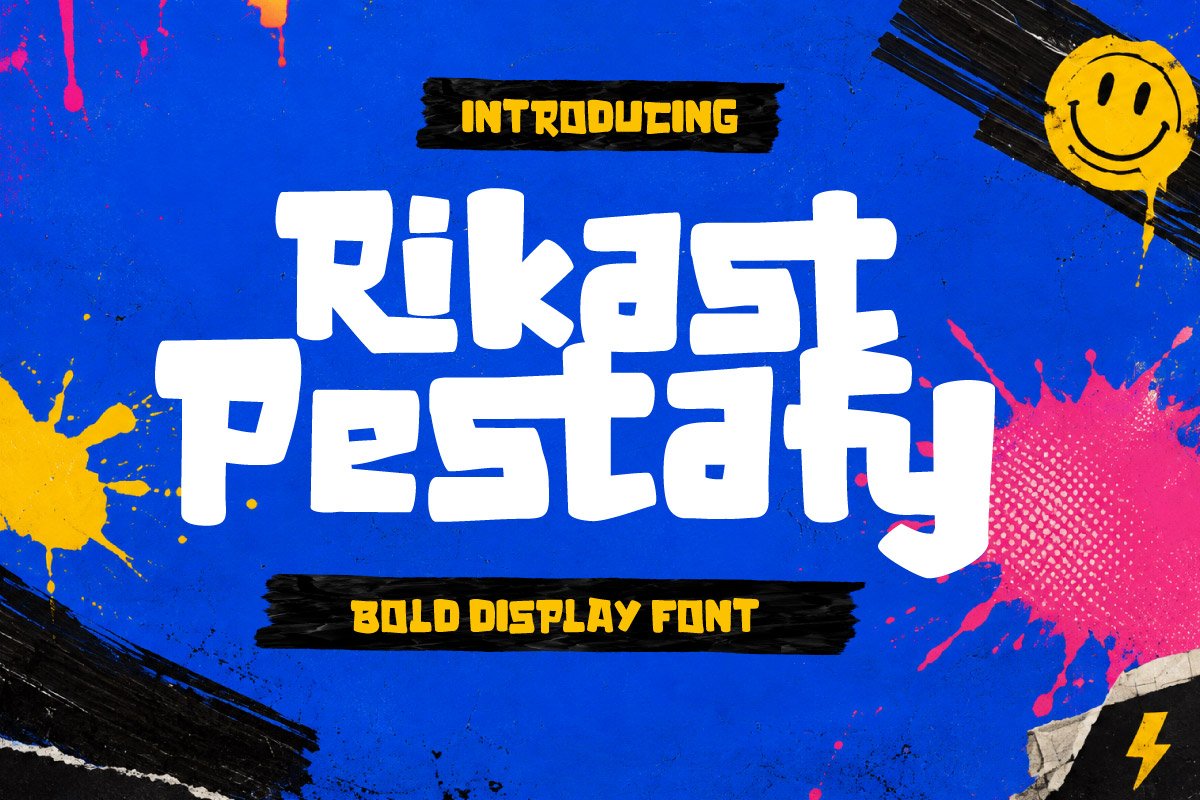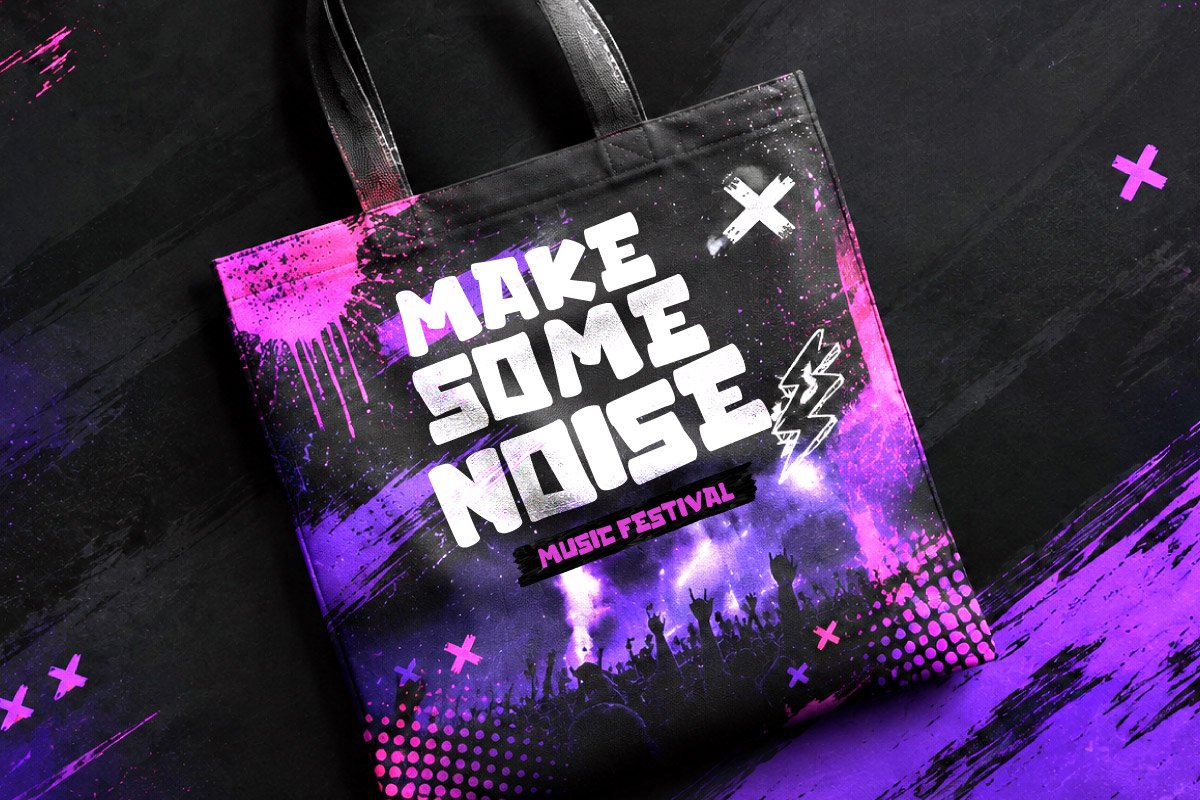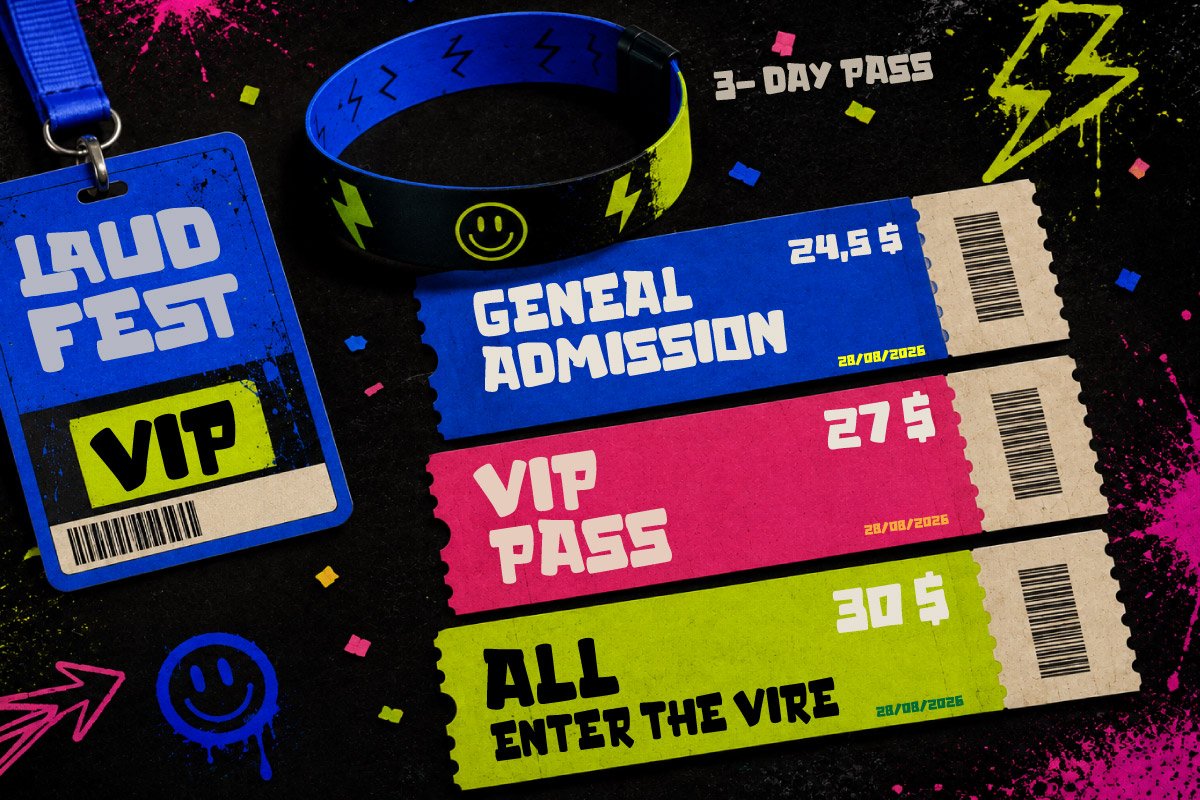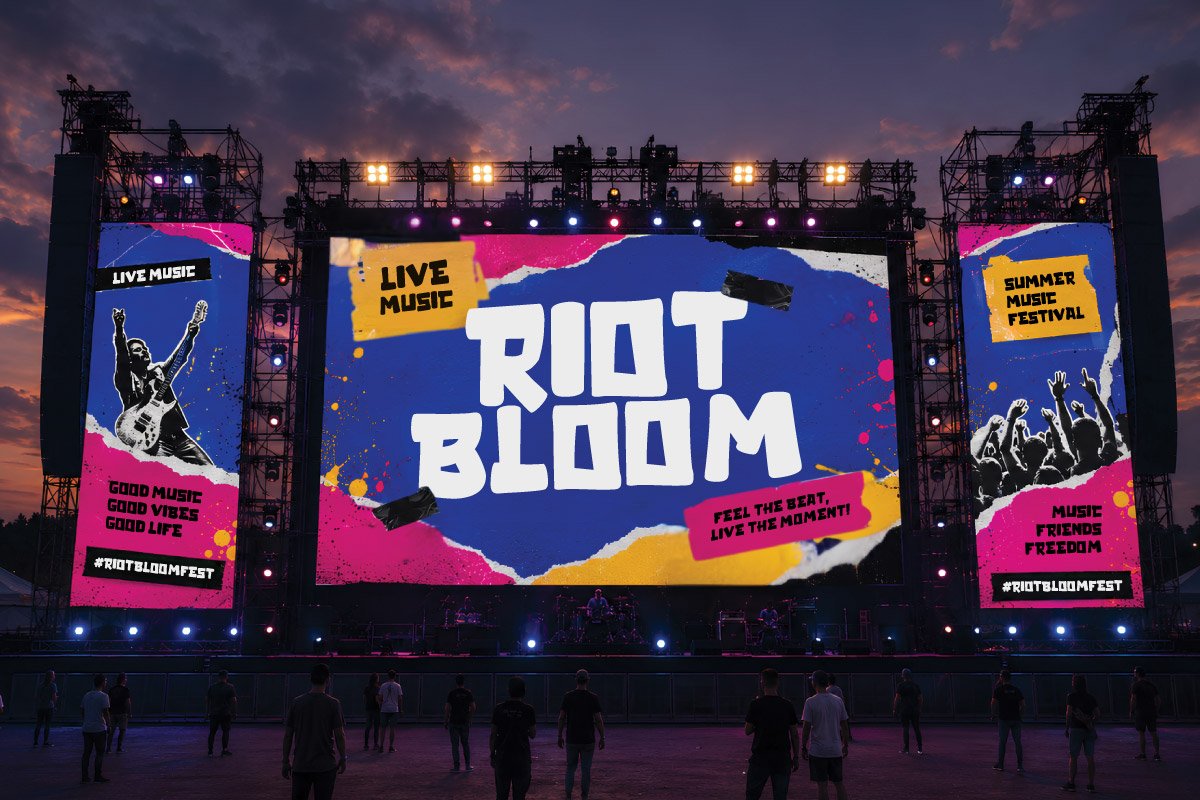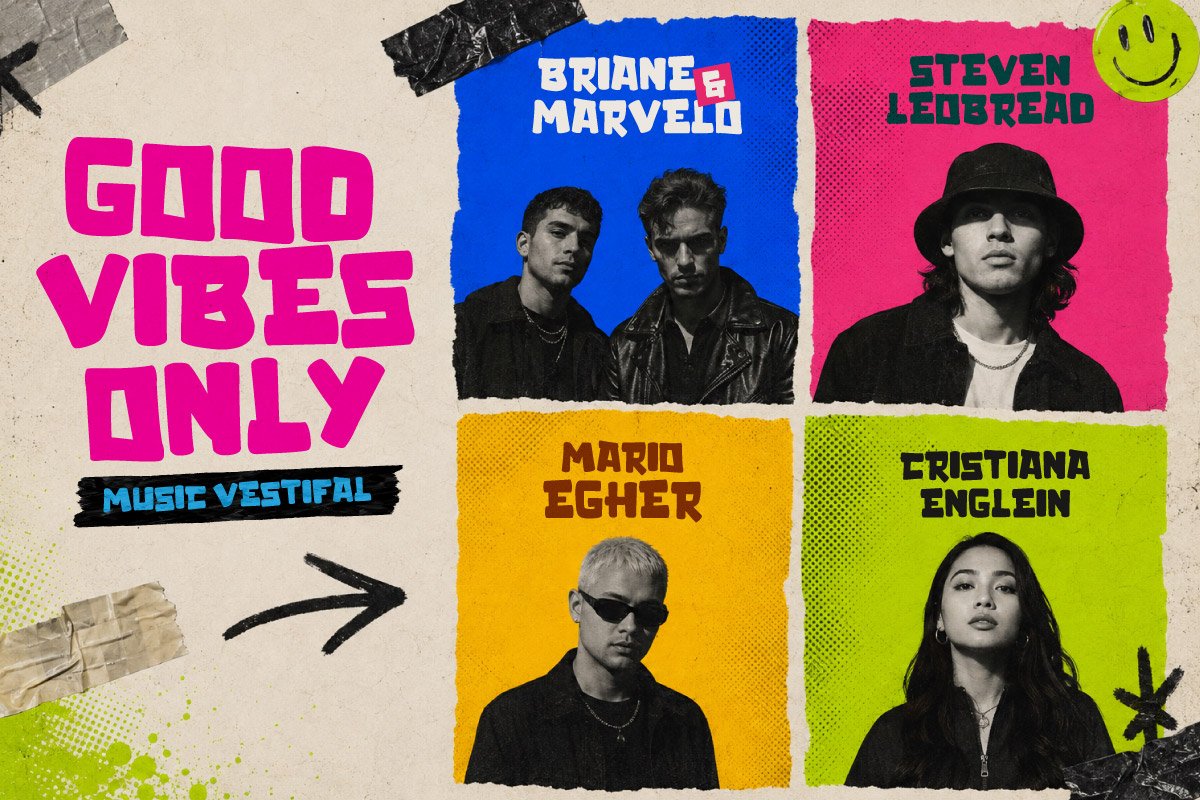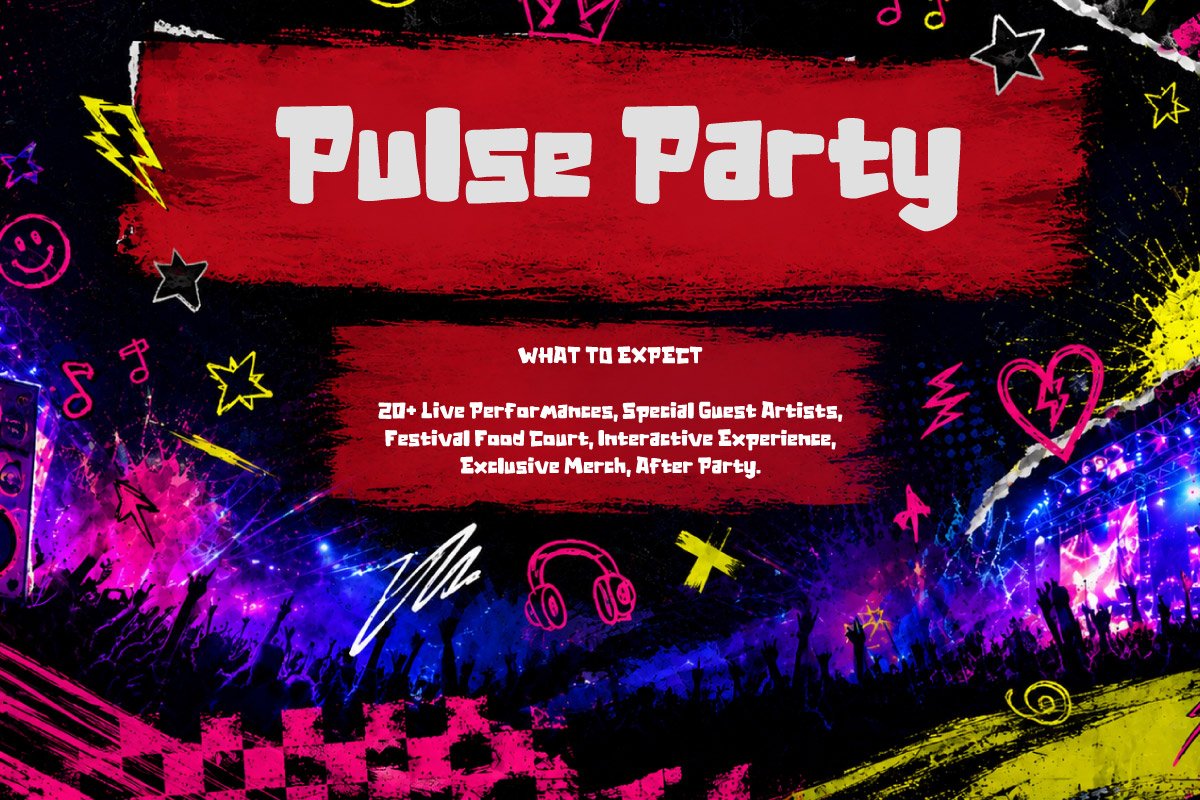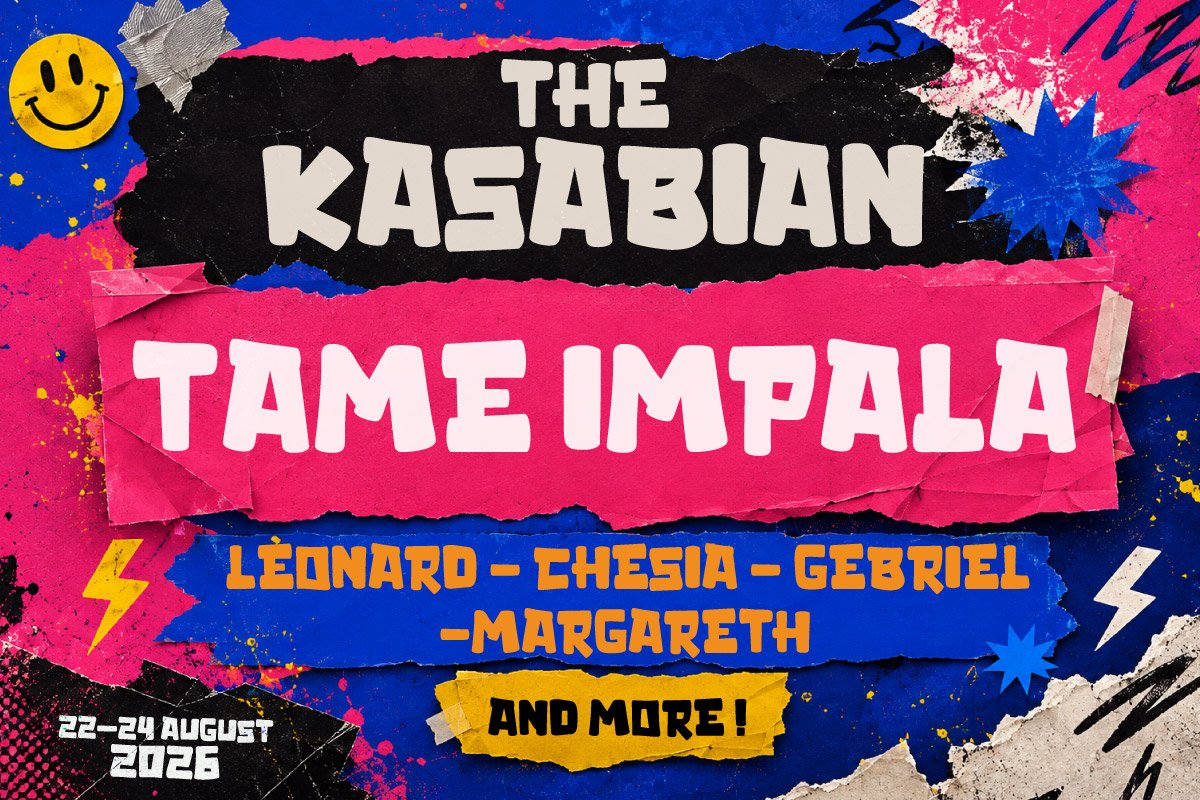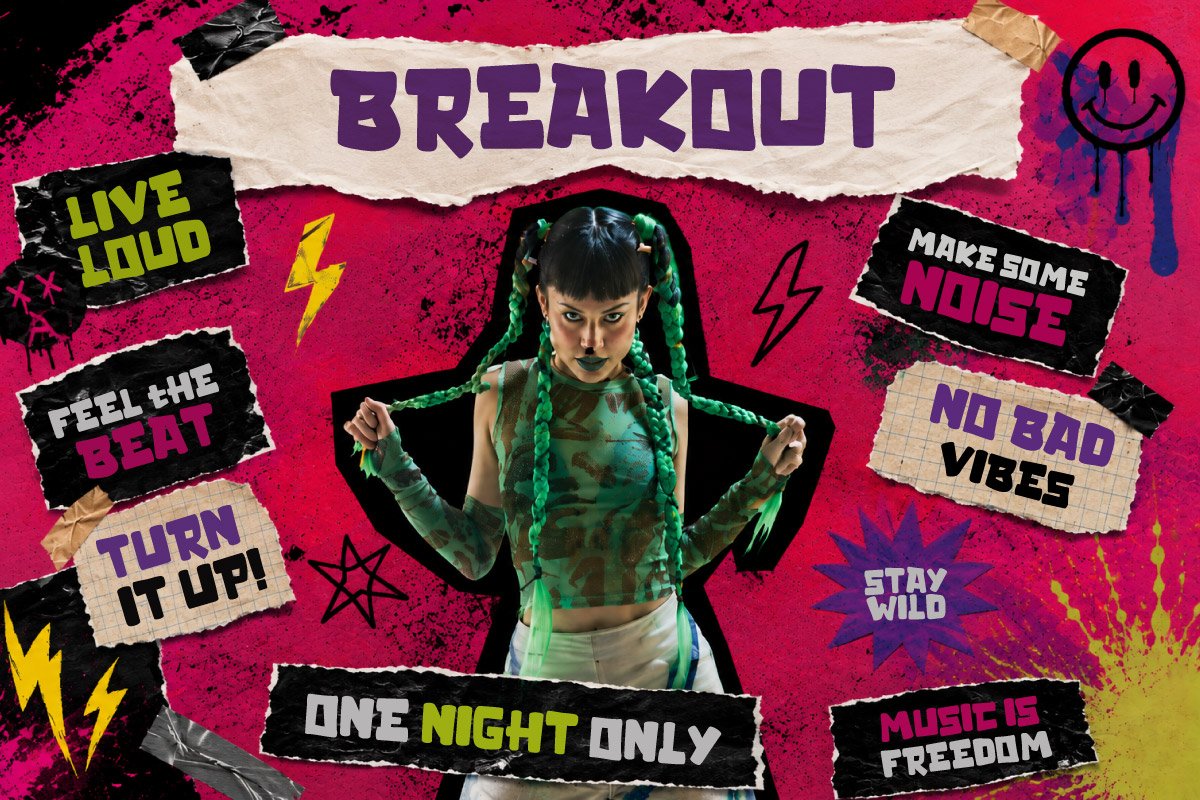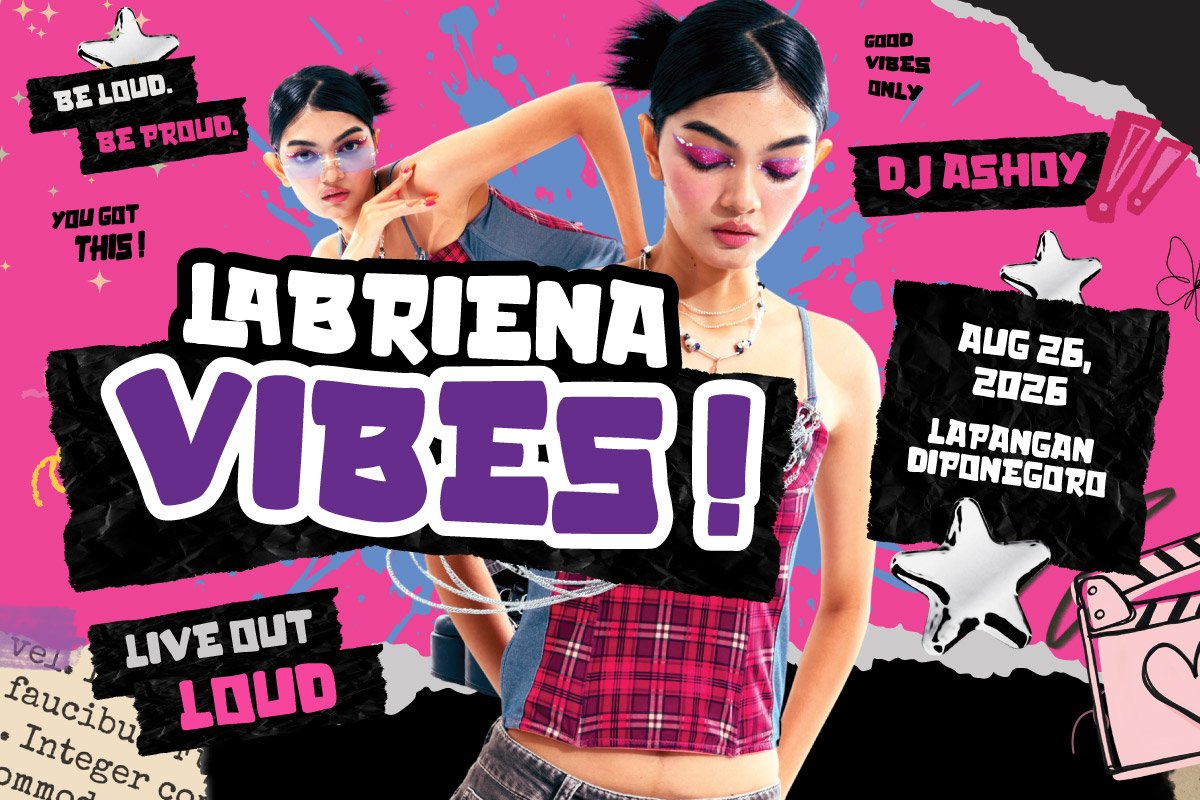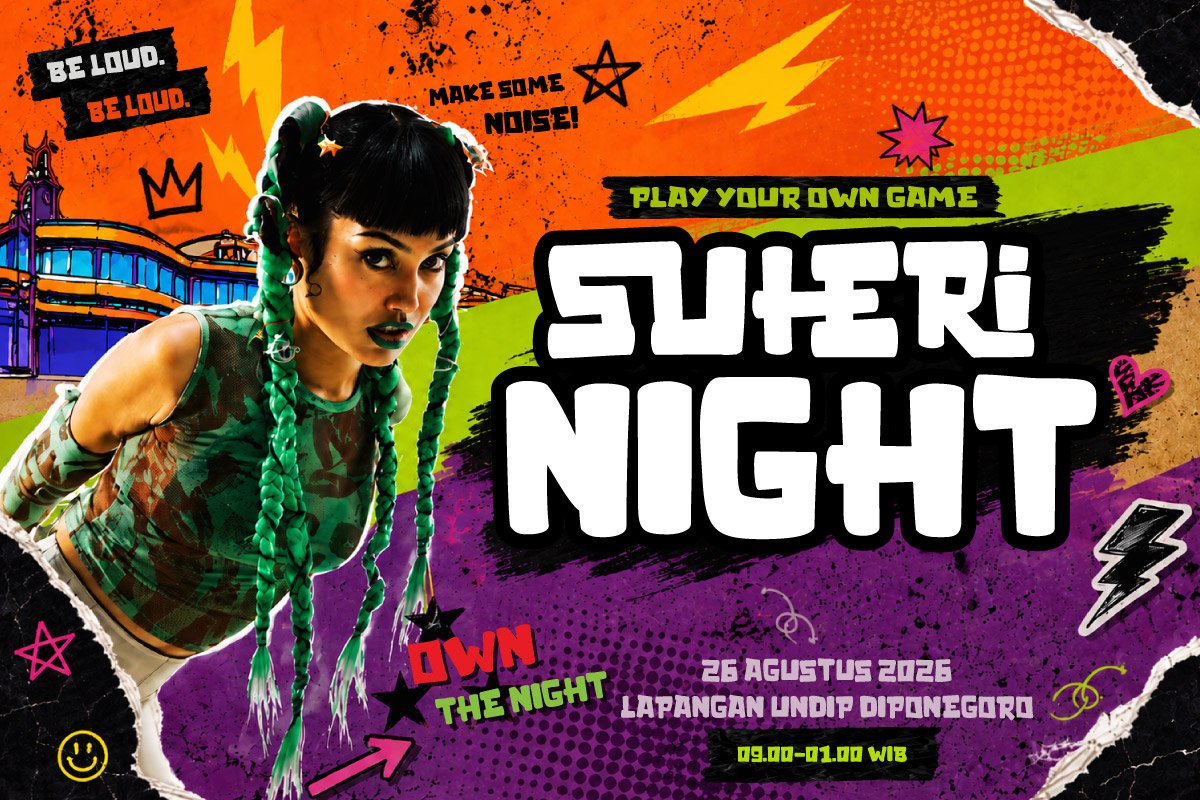
- Rikast Pestafy – Bold Display Font
Rikast Pestafy – Bold Display Font is a bold, playful, and experimental display typeface created to bring strong visual energy to music, festival, concert, and creative event designs. Its chunky, heavy, and expressive letterforms create an eye-catching presence, making it ideal for powerful headlines with a fun, rebellious, youthful, and energetic personality.
This font is perfect for music festivals, concert posters, summer events, party promotions, artist lineups, stage branding, tour merchandise, event campaigns, social media promotions, and advertising projects that require high visual impact. Its distinctive character works especially well for designs that need to feel bold, modern, unconventional, and instantly attention-grabbing.
Featuring uppercase, lowercase, numerals, punctuation, and multilingual support, Rikast Pestafy offers versatility for professional creative projects. An excellent choice for graphic designers, event organizers, music brands, creative agencies, and content creators looking for a memorable display font with a strong visual personality.